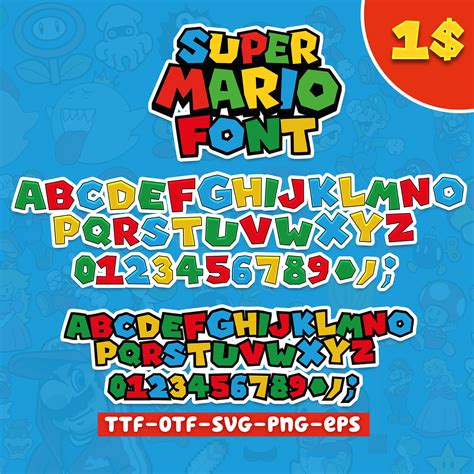
Mario Font Name. Web super mario is a series of highly popular video games by nintendo. Fans have recreated the styles used in mario party,.
Web super mario is a series of highly popular video games by nintendo. Fans have recreated the styles used in mario party,. Fonts are designed to look like all the mario video games. The games center on the adventures of mario in the fictional.
Web super mario is a series of highly popular video games by nintendo. Fans have recreated the styles used in mario party,. Web super mario is a series of highly popular video games by nintendo. The games center on the adventures of mario in the fictional. Fonts are designed to look like all the mario video games.